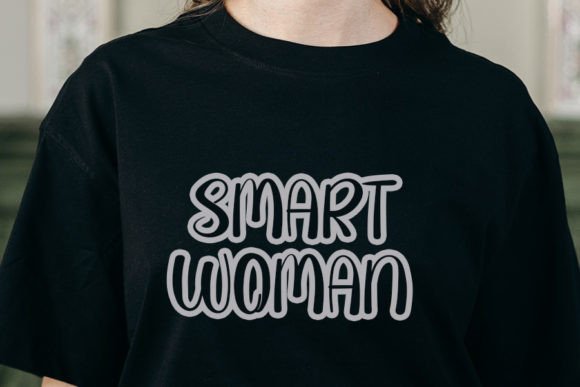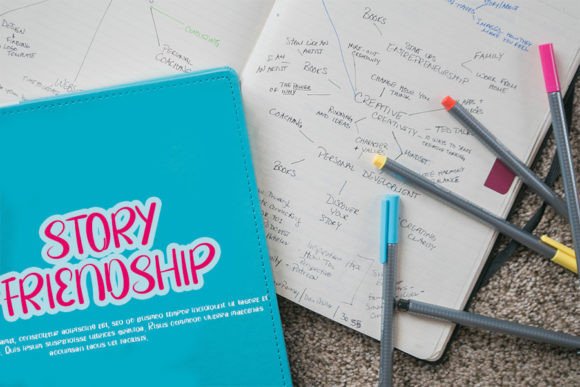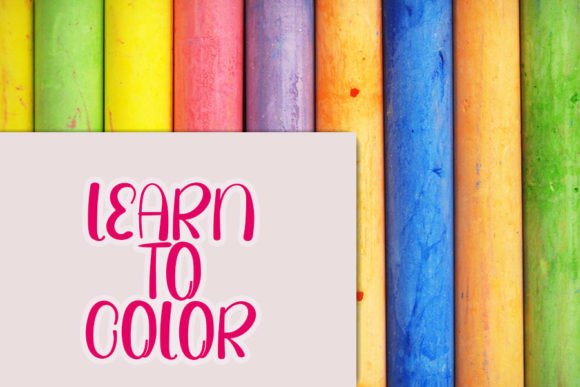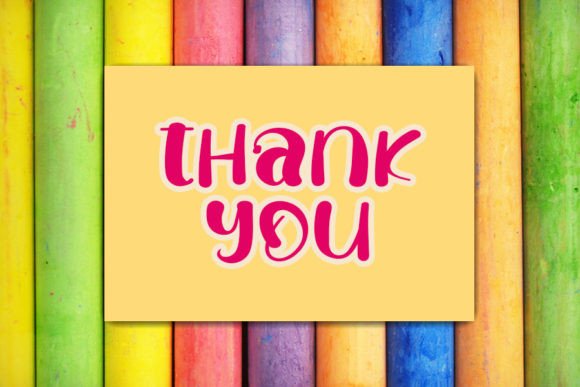
Introducing Dring Coffee Font: Elevate Your Designs with a Modern Handwritten Style
Are you on the hunt for a font that adds a touch of elegance and modernity to your projects? Look no further than the Dring Coffee Font. This cool handwritten font is inspired by classic calligraphy, offering a balanced and varied style that’s perfect for designers and crafters alike. In this article, we’ll dive into the features and benefits of Dring Coffee Font, and explore how it can enhance the beauty of your designs.
A Modern Take on Classic Calligraphy
Dring Coffee Font is a masterful blend of traditional calligraphy and modern design principles. Its spotless form and balanced style make it an excellent choice for a wide range of projects, from branding and advertising to packaging and digital media. The font’s not too thin and not too thick, which means it strikes the perfect balance between elegance and readability.
Key Features of Dring Coffee Font
• Handwritten style: Dring Coffee Font boasts a beautiful, handwritten style that’s perfect for adding a personal touch to your designs.
• Modern vibe: With its clean lines and balanced style, Dring Coffee Font has a distinctly modern feel that’s sure to appeal to designers and crafters.
• Spotless form: The font’s spotless form ensures that it looks great in any context, from large headlines to small body text.
• Balanced and varied: Dring Coffee Font offers a range of variations, making it easy to create visually interesting and dynamic designs.
Why Choose Dring Coffee Font?
So why should you choose Dring Coffee Font for your next project? Here are just a few compelling reasons:
• Versatility: Dring Coffee Font is incredibly versatile, making it suitable for a wide range of projects and applications.
• Elegance: The font’s elegant, handwritten style adds a touch of sophistication to any design.
• Readability: Dring Coffee Font is highly readable, even at small sizes, making it perfect for body text and captions.
• Uniqueness: With its modern vibe and balanced style, Dring Coffee Font is sure to help your designs stand out from the crowd.
Using Dring Coffee Font in Your Designs
Dring Coffee Font is incredibly easy to use, and can be incorporated into your designs in a variety of ways. Here are a few ideas to get you started:
• Branding and advertising: Use Dring Coffee Font to create eye-catching logos, ads, and marketing materials that showcase your brand’s personality.
• Packaging design: Add a touch of elegance to your product packaging with Dring Coffee Font, perfect for labels, tags, and other packaging materials.
• Digital media: Use Dring Coffee Font to create stunning digital content, from social media graphics to blog posts and website headers.